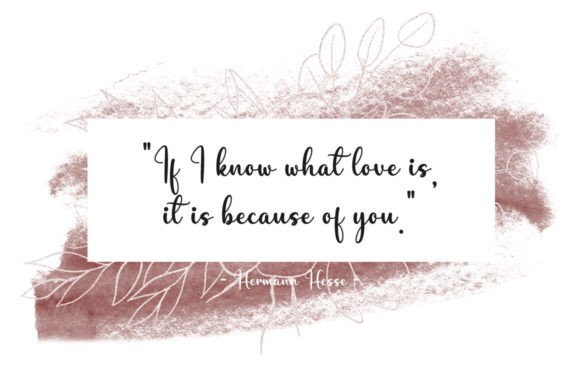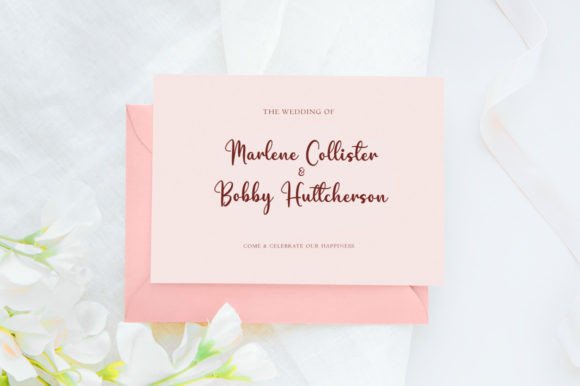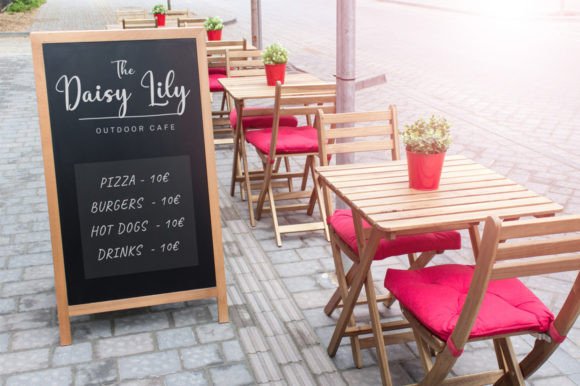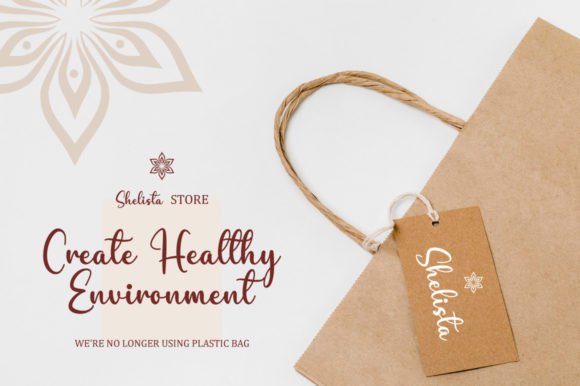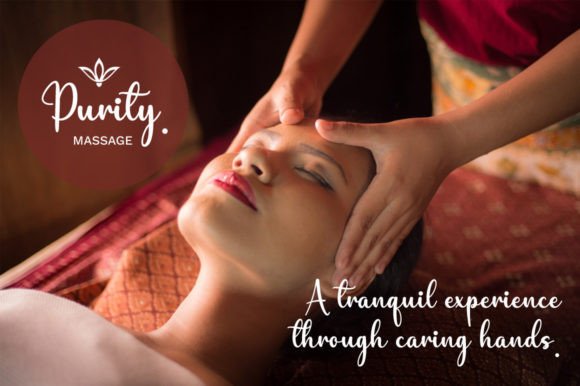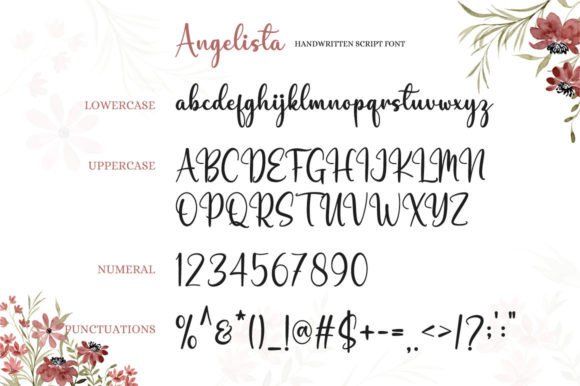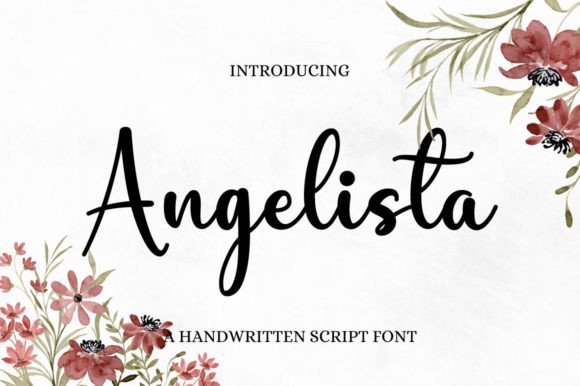
The Elusive Perfect Font: My Encounter with Angelista
I still remember the frustration of working on a project, hours spent searching for the perfect font, only to come up empty-handed. My client wanted a sophisticated and elegant look, but nothing seemed quite right. That was until I stumbled upon Angelista, a delicate and refined script font that instantly caught my eye. In this article, I’ll share my experience with Angelista, its features, and how to make the most of this beautiful font.
An Honest Review of Angelista
- ✨ Elegant and sophisticated design, perfect for high-end projects
- ✅ Stylish alternates and ligatures that add a touch of uniqueness
- 💫 Highly legible, even at smaller font sizes
- 🎨 Versatile, suitable for a wide range of projects, from branding to wedding invitations
While Angelista is an exceptional font, there are a few things to keep in mind:
- 🤔 Some users may find the font a bit too delicate for certain applications, such as body text
- ⚠️ Limited availability of Cyrillic and non-Latin characters
The Story Behind Angelista
Angelista was designed with the intention of creating a font that exudes elegance and sophistication. The designer aimed to craft a font that would be perfect for high-end projects, wedding invitations, and luxury brands. With its delicate lines and refined features, Angelista has become a popular choice among designers and crafters.
Q: Is Angelista available in multiple languages?
A: Angelista supports a range of languages, but it may not have full support for Cyrillic and non-Latin characters. Be sure to check the font’s capabilities before use.